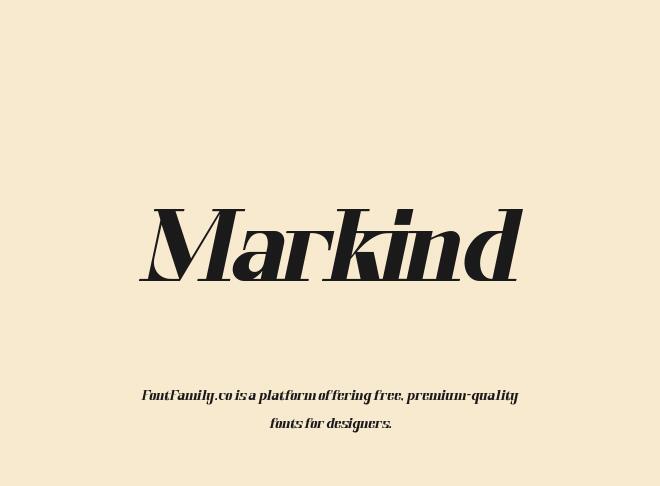
Markind Font
Introducing Markind Font, a modern and bold typeface designed by Markind Design Studio. This font is characterized by its strong and confident letters, making it perfect for headings and bold statements. Its unique design sets it apart from other fonts, offering a fresh perspective in the world of typography. Though modern in style, it carries a certain timeless quality, making it versatile for various design projects. From branding to advertising, editorial design to social media posts, Markind Font can add a distinctive touch. It's a free font for personal use, making it a great choice for designers who are looking to experiment with new typography styles. The boldness of Markind Font can give your designs an edge, helping them stand out in a crowded marketplace.